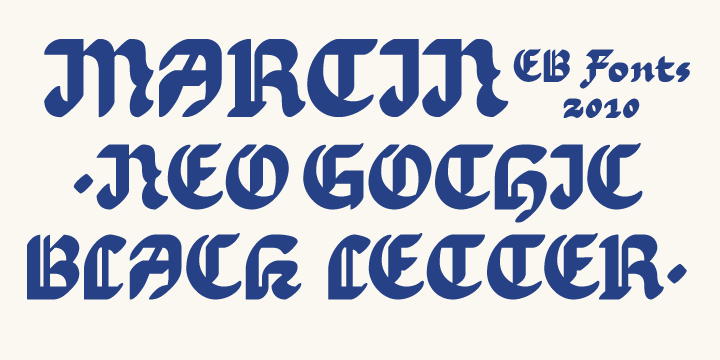
Martin is a post modern retake on several traditional blackletter types.
Despite the organic feel, the construction is entirely geometric – thus creating a harmonious and uniform – modern – appearance.
Martin is an experiment in application of organic brush stroke to a geometric construction. More…
At first glance it might look a fairly traditional blackletter but closer examination reveals the quirky details: its rational construction becomes evident as well.
Martin comes with a support for most latin based European languages, a comprehensive open type kerning plus both lower case and upper case figure styles.
With Martin, it is easy to create iconic, striking all caps poster typography. However, it can equally well be used for short phrases of text.